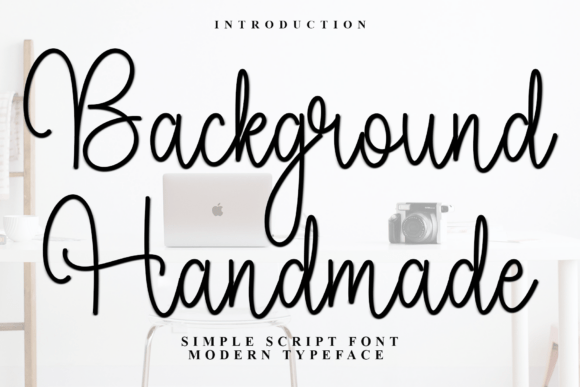
Introducing Background Handmade Font: Elevate Your Designs with a Unique Touch
In the world of typography, a well-crafted font can make all the difference in bringing your creative projects to life. If you’re a designer, crafter, or artist looking for a distinctive and eye-catching font to add a personal touch to your work, look no further than Background Handmade Font. This beautiful, handmade font is designed with a soft, unique touch that sets it apart from more traditional fonts, making it perfect for a wide range of design projects, crafts, and creative works.
The Distinctive Character of Background Handmade Font
Background Handmade Font boasts distinctive strokes that give it a special character, making it both meaningful and versatile for future use. Its unique design ensures that your projects stand out, whether you’re working on a logo, branding materials, invitations, or any other creative endeavor. The font’s natural, handmade style lends a sense of warmth and personality to your designs, making them more relatable and engaging to your audience.
Endless Possibilities with Various Characters
One of the key features of Background Handmade Font is its extensive range of characters. This variety allows you to experiment with different combinations and styles, ensuring that your designs are always fresh and exciting. Whether you’re creating a cohesive brand identity or exploring different themes in your art, this font provides the flexibility you need to express your creativity.
Background Handmade Font is specifically designed with designers and crafters in mind. Its unique aesthetic makes it an ideal choice for a wide range of projects, from digital designs to handmade crafts. Use it to add a personal touch to your artwork, create custom signage, or enhance your product labels. The font’s versatility ensures that it can be adapted to suit various design needs, making it a valuable addition to your creative toolkit.
Enhance Your Designs and Appeal to a Wide Audience
The natural style of Background Handmade Font makes it an excellent choice for designers and crafters who want to create products that appeal to a wide audience. Its unique charm and character can enhance everything from stationery and packaging to digital content and advertising materials. By using this font, you can create designs that resonate with people across different artistic and creative fields, helping you to build a strong brand identity and connect with your target audience.
Tips for Maximizing the Potential of Background Handmade Font